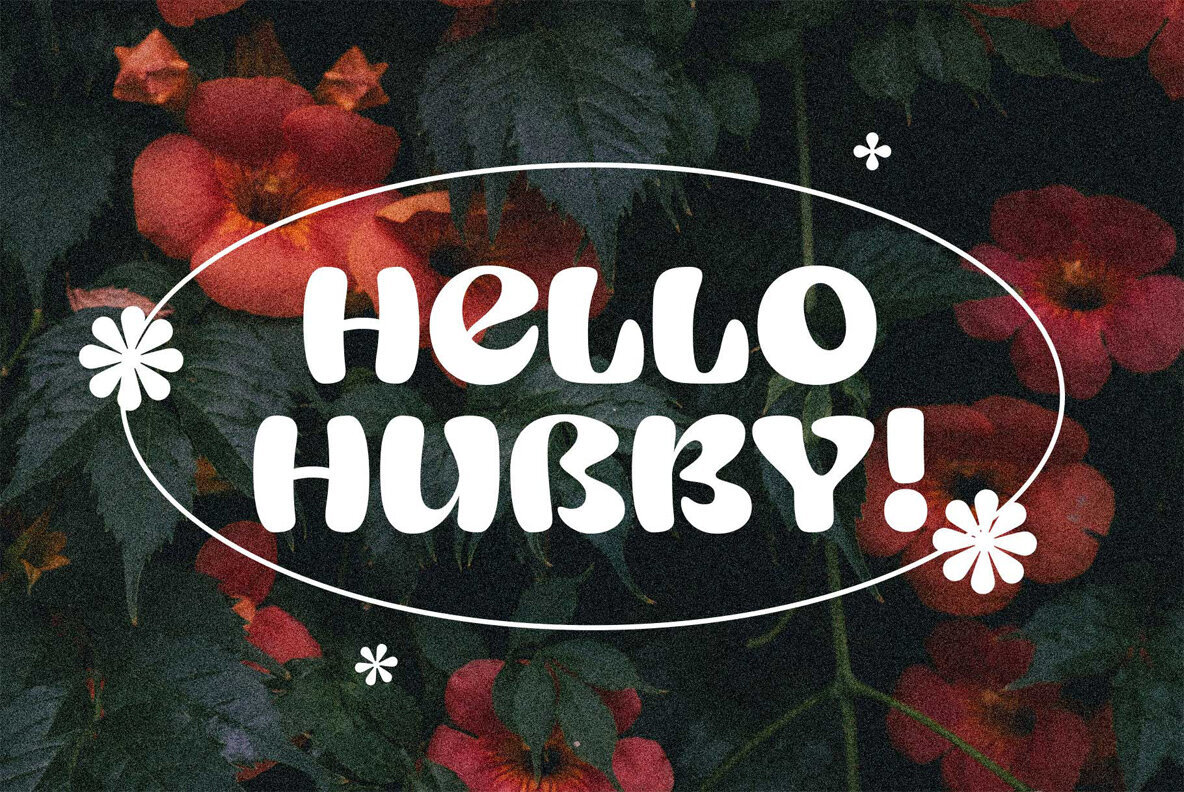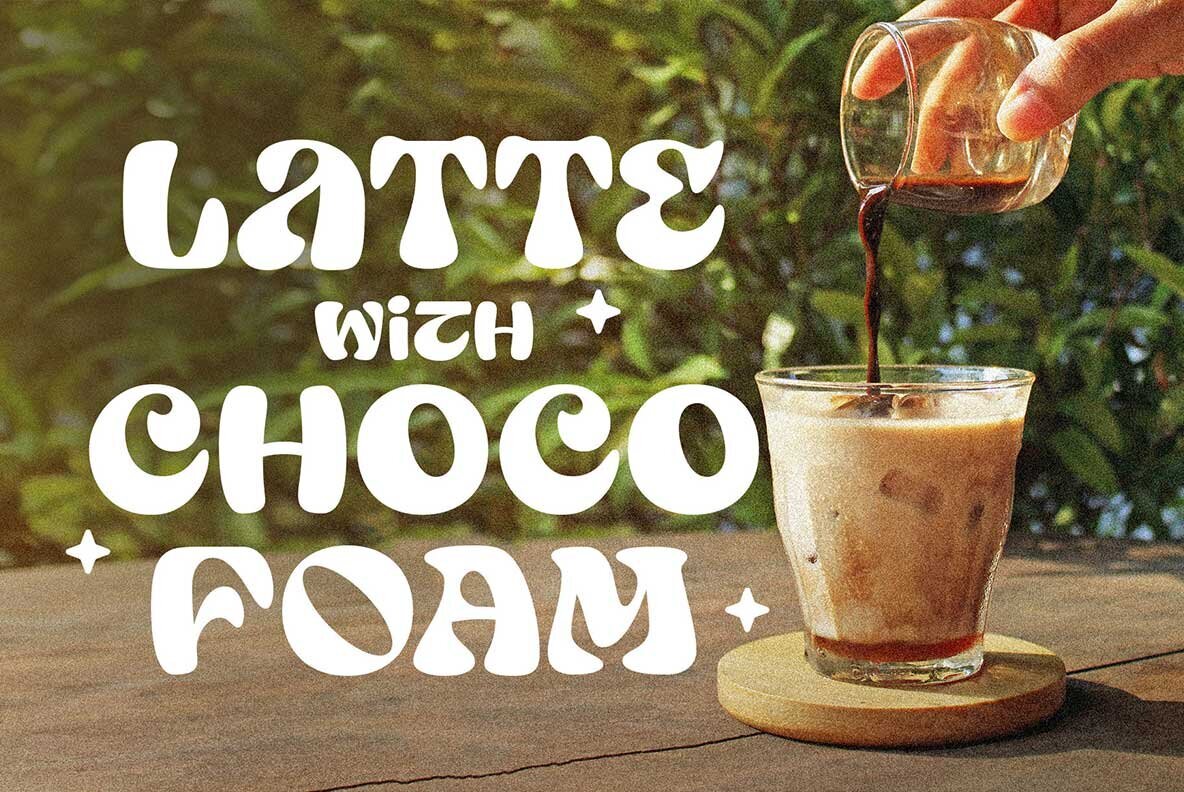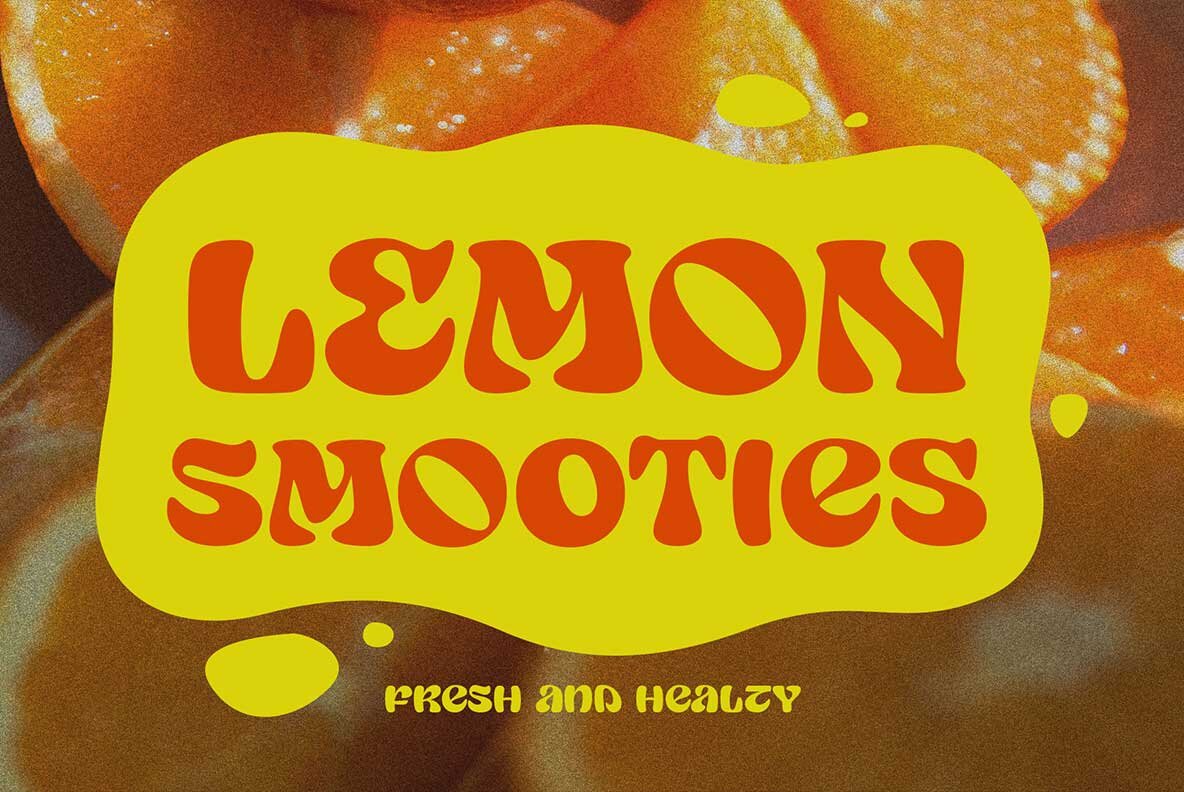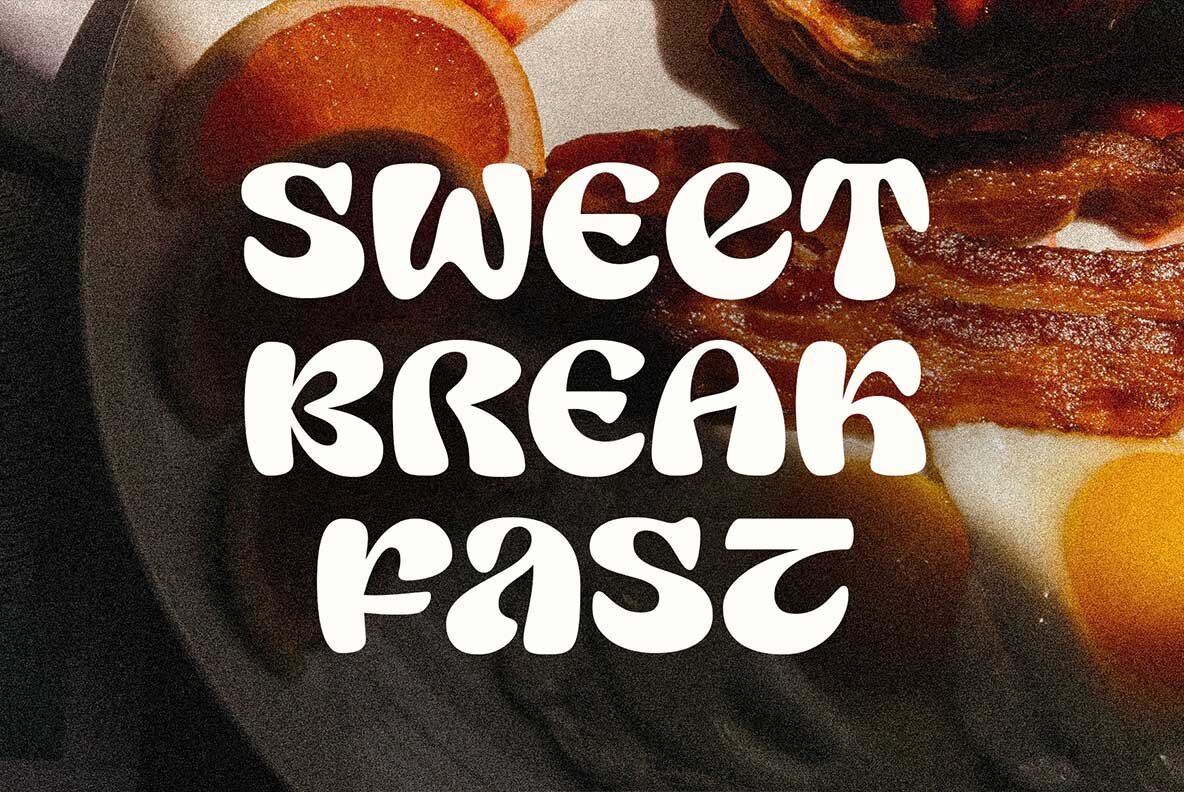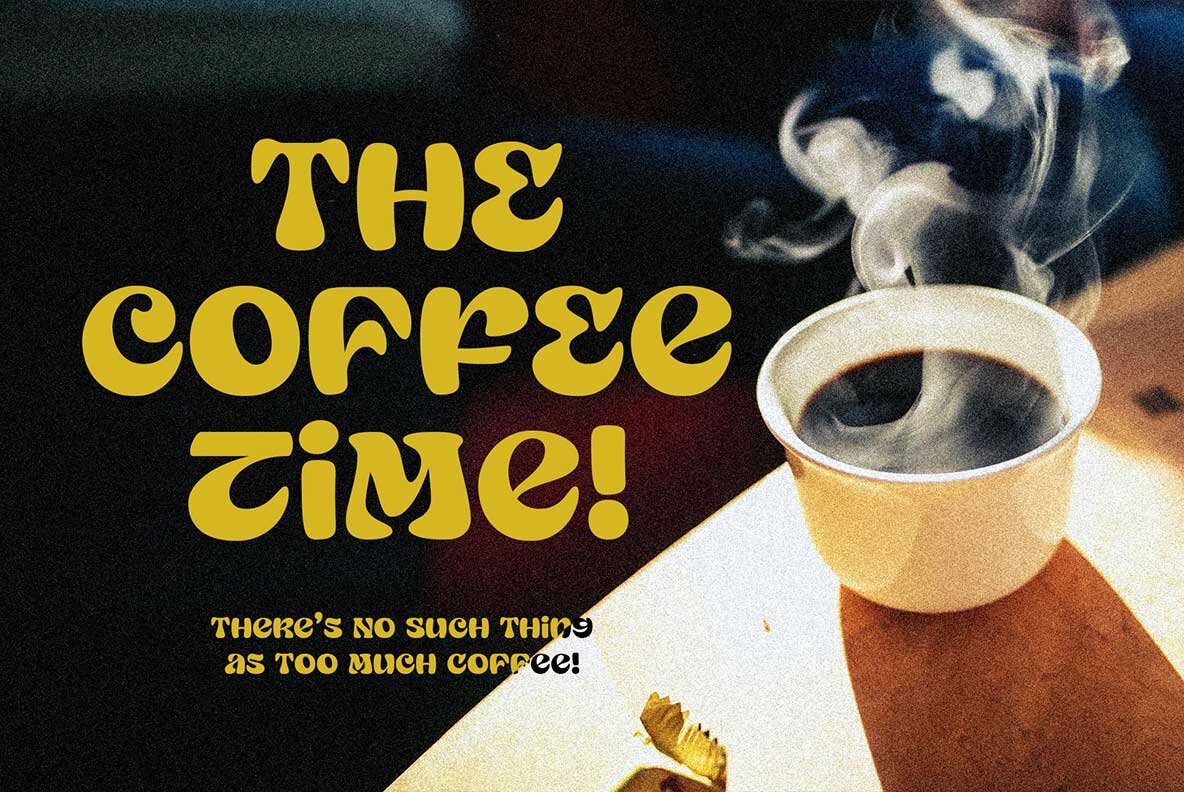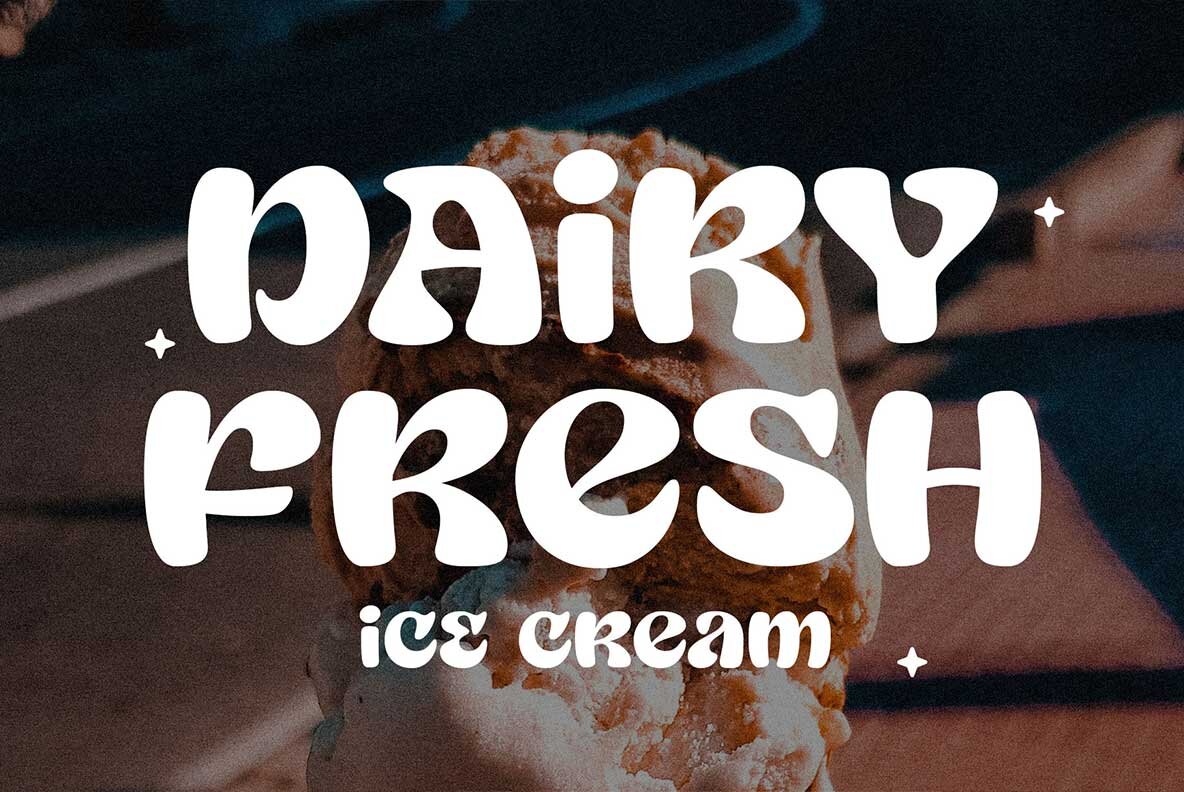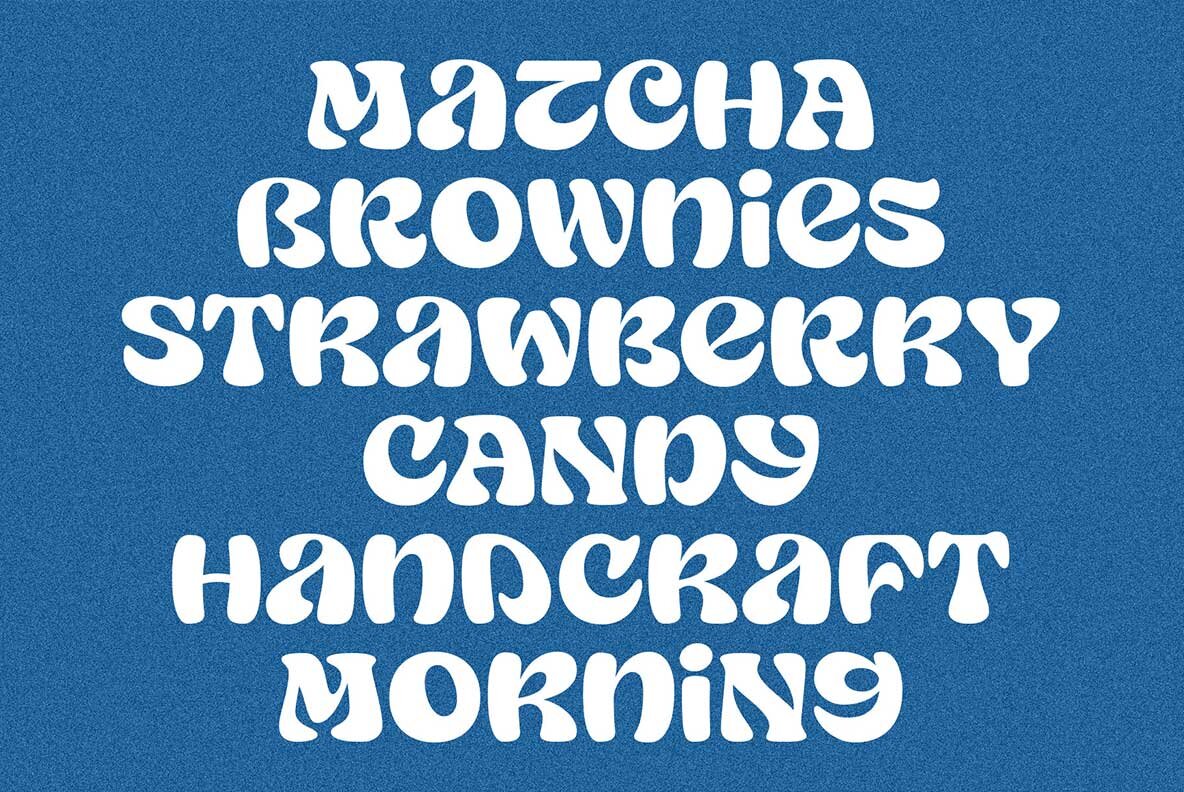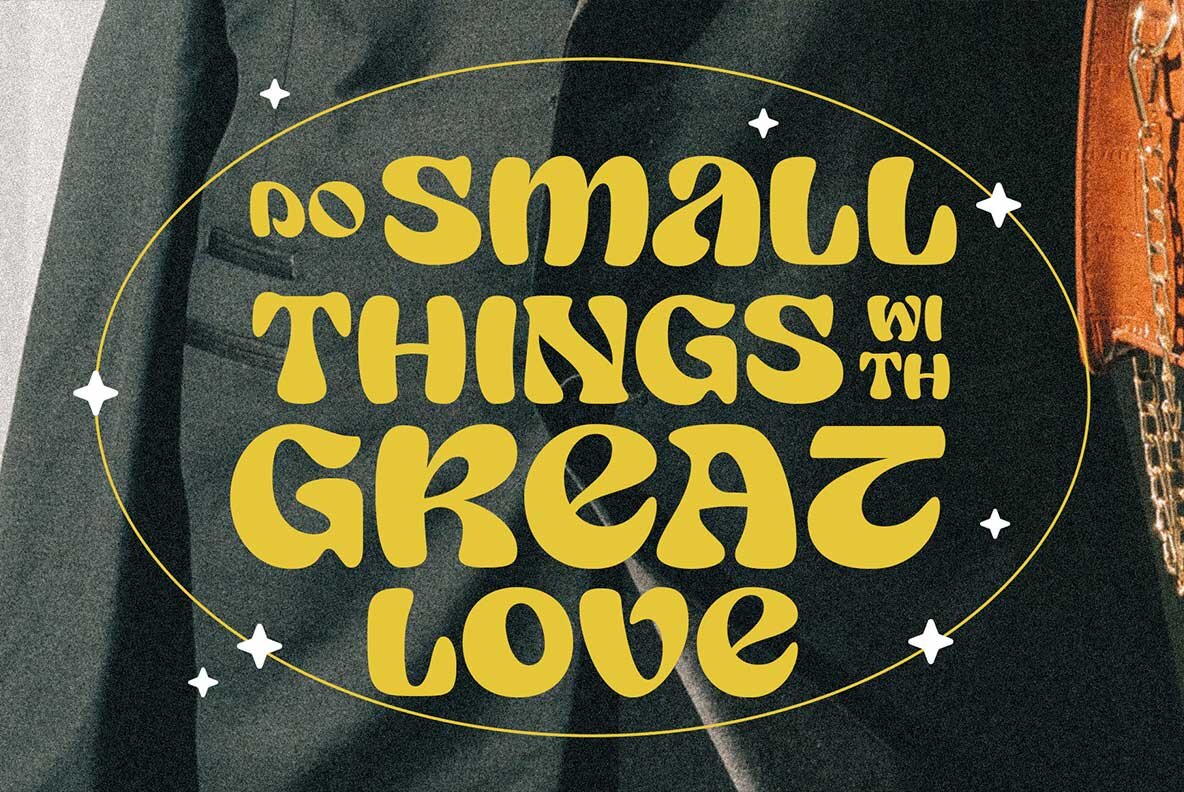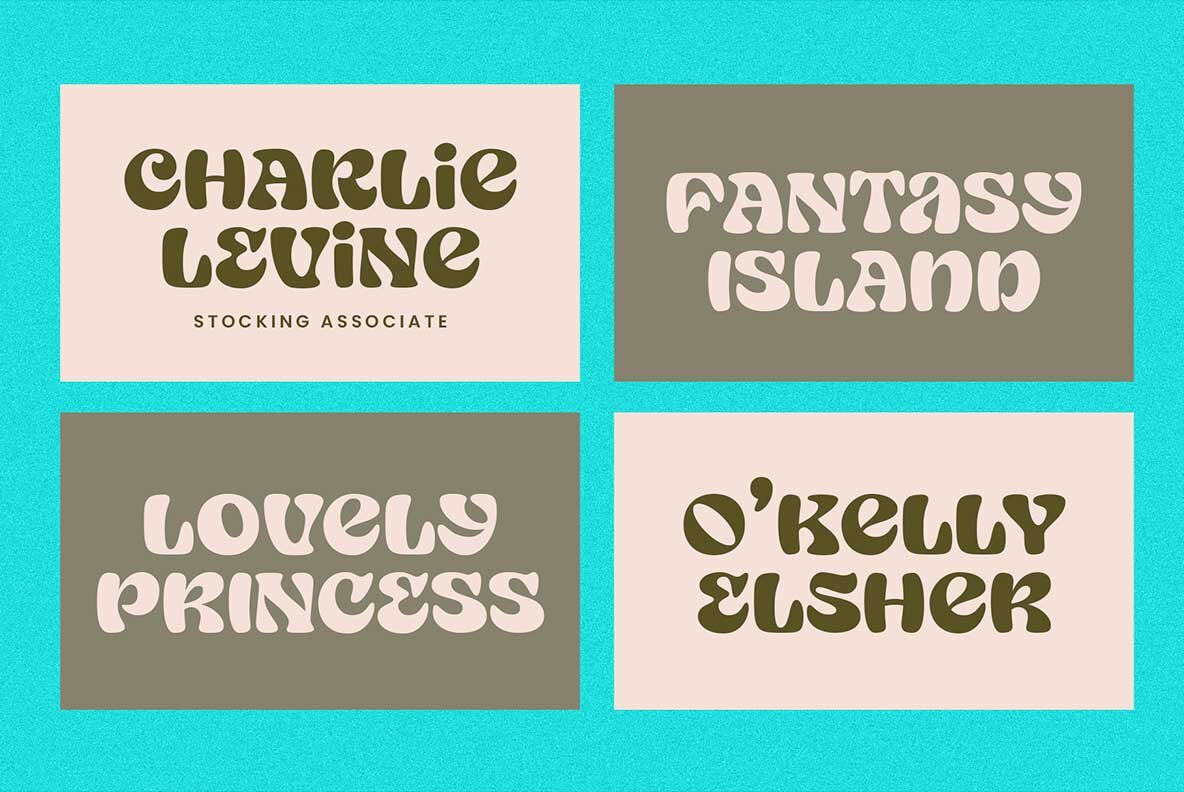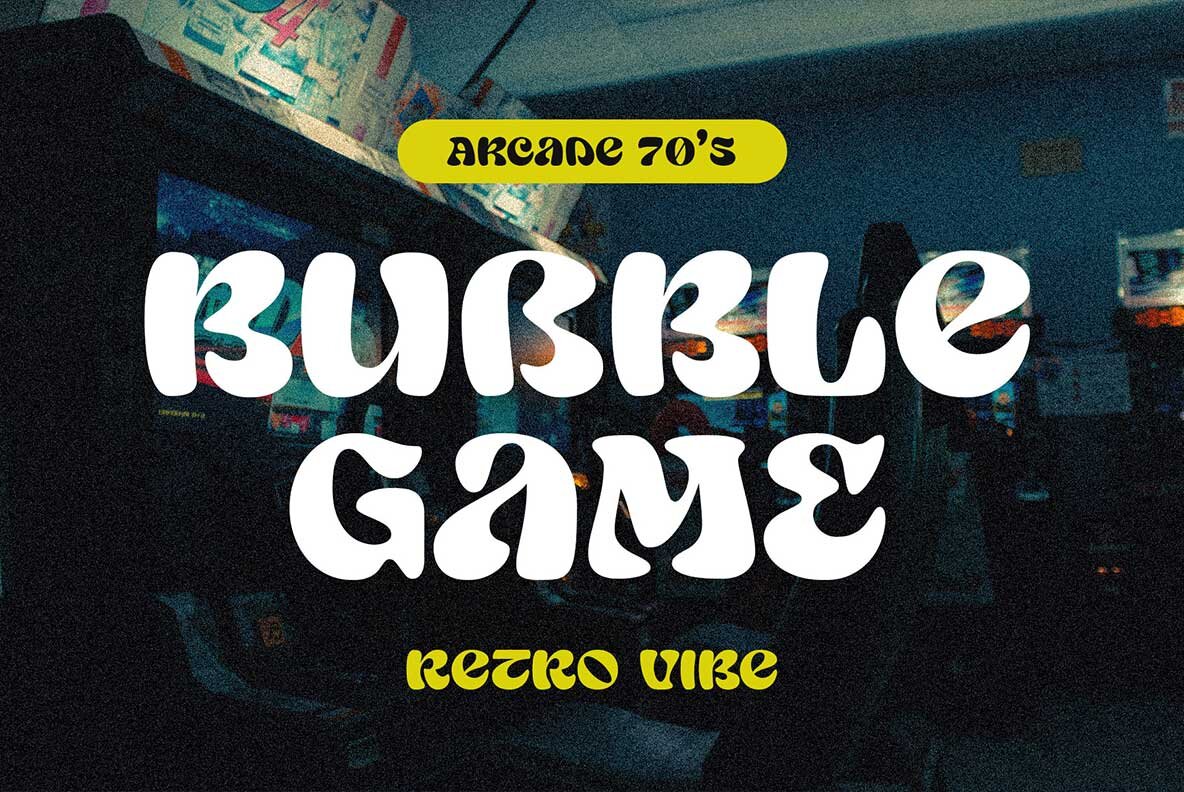
Nueva Garcia: A Bold and Playful Typeface
Say hello to the Nueva Garcia font! This bold and playful typeface masterfully combines retro groovy and psychedelic styles. Its slightly quirky shape adds a unique charm, making it perfect for use in displays or titles. Leverage Nueva Garcia for projects such as packaging, logos, menus, banners, stickers, posters, short quotes, and more.
Perfect for Fun and Joyful Themes
Ideal for themes that require a fun, joyful, delicious, and sweet impression, Nueva Garcia also comes with stylistic alternatives that enhance your creativity when crafting amazing designs!